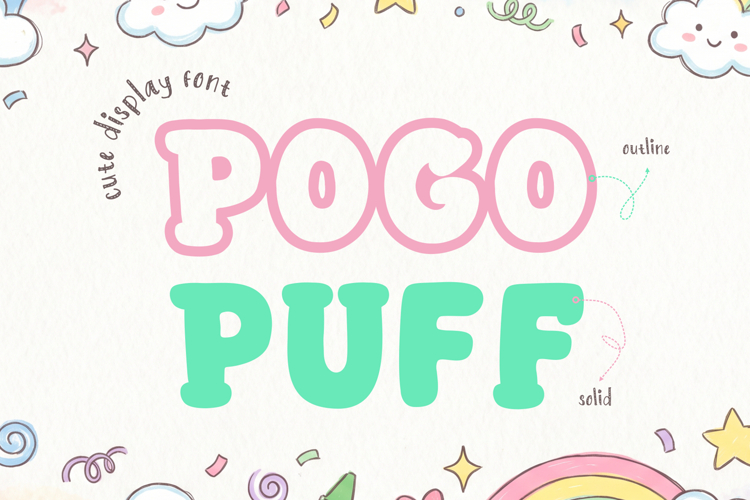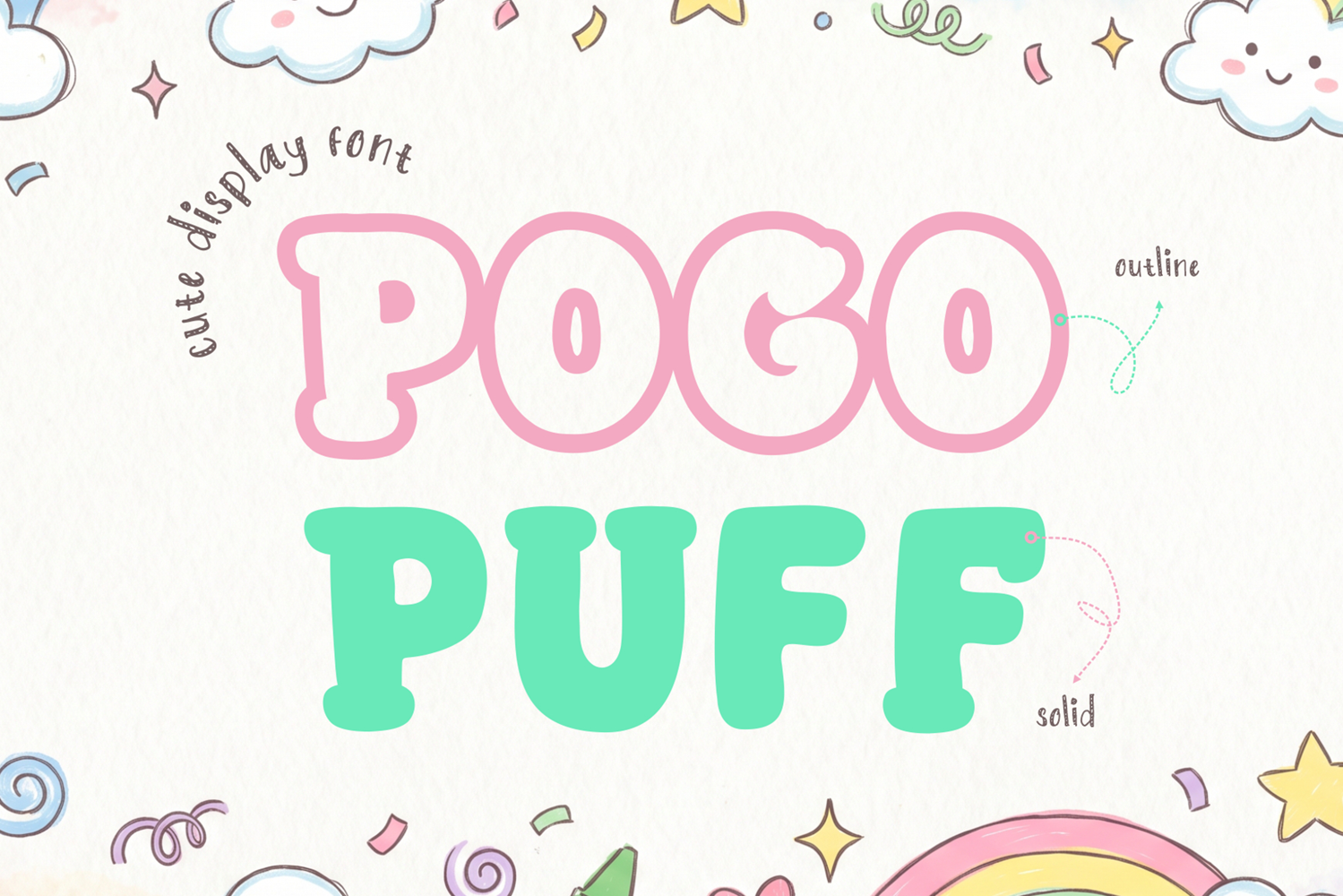
Pogo Puff Cute Display Font Fun Rounded Playful Style
Pogo Puff is a cute and playful display font designed to bring joy, charm, and a soft personality into your creative projects. Inspired by bubbly shapes, rounded forms, and cheerful visual language, this font is perfect for designs that aim to feel friendly, fun, and approachable. With its smooth curves and balanced proportions, Pogo Puff creates a warm and inviting impression that instantly connects with audiences of all ages.
This font comes with two versatile styles: outline and solid. The outline version offers a light, airy look that works beautifully for layered typography, stickers, and decorative elements. Meanwhile, the solid version delivers a bold and clean appearance, making it ideal for headlines, titles, and eye-catching compositions. These two styles can be combined creatively to produce colorful, dimensional, and playful designs.
Pogo Puff is crafted with a strong focus on readability while maintaining its cute personality. Each letter is carefully designed with rounded edges and soft curves, ensuring that text remains clear even at larger sizes. This makes it an excellent choice for display purposes such as posters, children’s books, packaging, branding, and social media graphics.
The font includes uppercase and lowercase characters, providing flexibility for various text styles. It also supports multilingual characters, allowing designers to use it across different languages and markets. Numbers and punctuation are included and styled consistently with the overall playful aesthetic, ensuring a cohesive design system.
Pogo Puff shines in projects that require a cheerful and friendly tone. It is especially suitable for kids-themed designs, educational materials, toy packaging, birthday invitations, greeting cards, and fun branding concepts. Its soft and rounded shapes make it visually appealing and easy to read, even for younger audiences.
In branding, Pogo Puff helps create a memorable and approachable identity. It works well for businesses that want to communicate warmth and creativity, such as bakeries, cafes, kids brands, or lifestyle products. When paired with pastel color palettes or bright tones, the font enhances the overall playful vibe and strengthens visual storytelling.
From a technical standpoint, Pogo Puff is optimized for both print and digital use. The clean vector shapes ensure high-quality results in various sizes and formats. Whether used for large banners or small packaging labels, the font maintains its clarity and charm.
Another advantage of Pogo Puff is its versatility in design combinations. It pairs beautifully with handwritten fonts, script styles, or even simple sans-serif fonts for contrast. Designers can experiment with outlines, shadows, and color layering to create dynamic compositions that stand out.
The font’s friendly personality also makes it highly suitable for social media content. In platforms where visual appeal is crucial, Pogo Puff helps grab attention and communicate messages in a fun and engaging way. Whether used for quotes, promotions, or announcements, it adds a touch of positivity to every design.
Overall, Pogo Puff is more than just a typeface—it is a creative tool that brings happiness and personality into your work. With its cute aesthetic, versatile styles, and strong usability, it is a perfect addition to any designer’s collection.